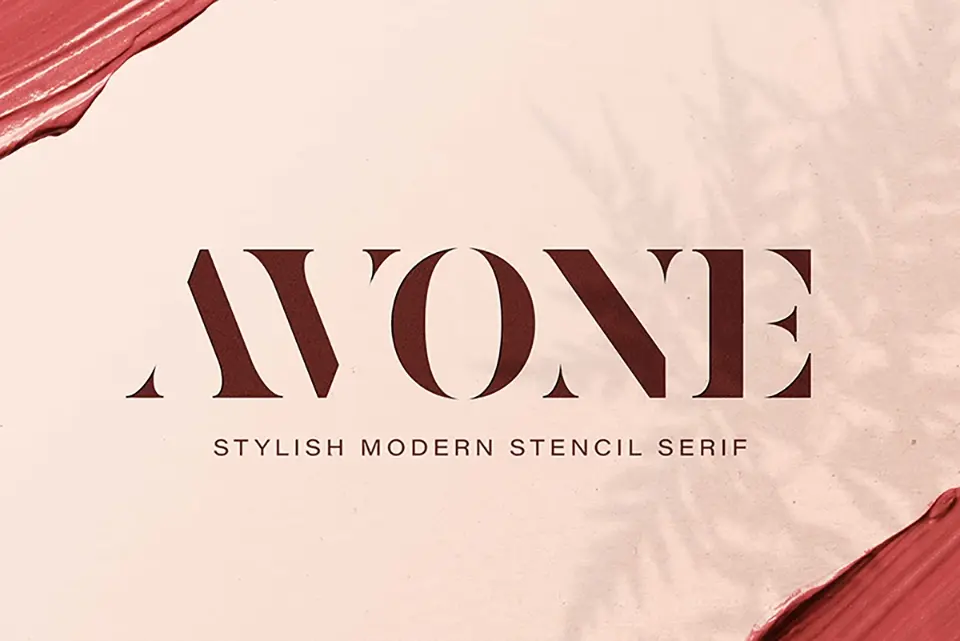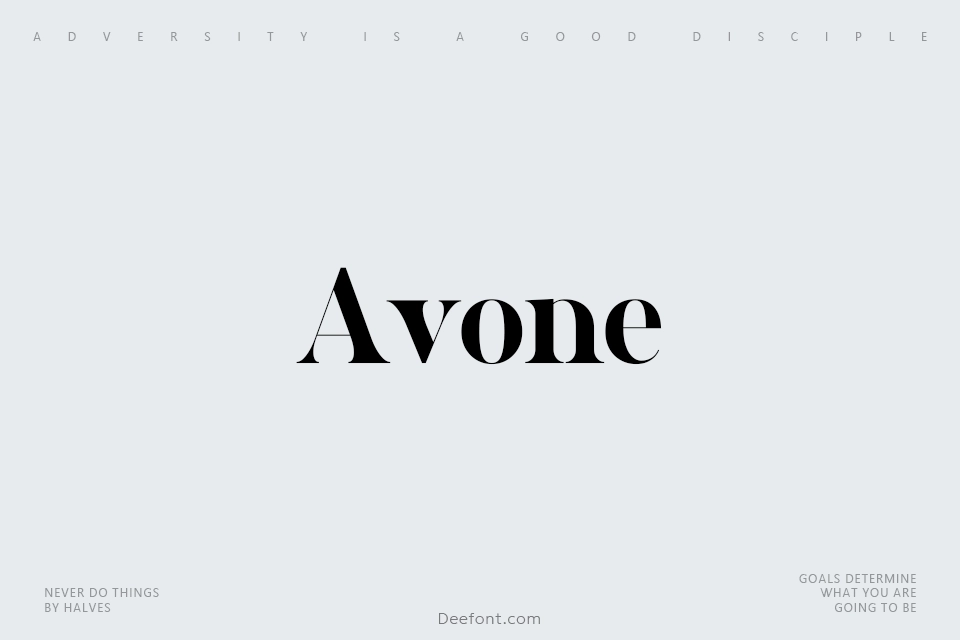
Avone Font
Avone is a contemporary stencil serif typeface crafted by Almarkhatype, combining minimalist aesthetics with elegant proportions. This versatile display font features both Regular and Stencil styles, making it ideal for branding, logos, advertising campaigns, and creative design projects. With its stylish modern approach and professional quality, Avone delivers distinctive typography suitable for templates, brochures, and visual branding applications. The font encompasses 243 glyphs supporting multilingual characters, ensuring broad compatibility across design platforms including Adobe Creative Suite and Microsoft Office.